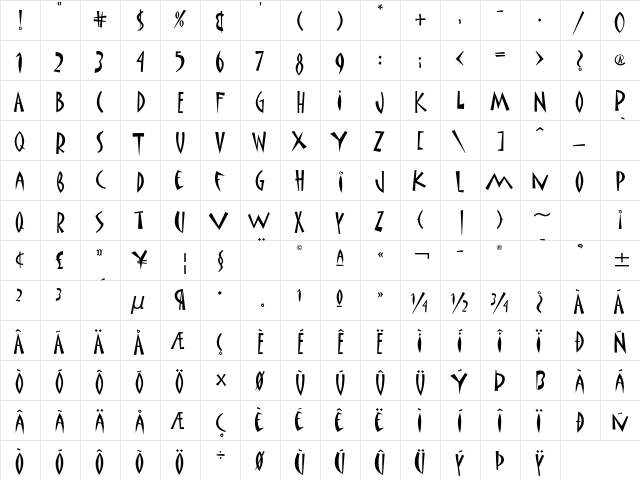
Matisse ITC Std Regular
| Designer | Gregory Gray |
Design Context for Matisse ITC Std Typeface
Matisse ITC Std is a composed and adaptable typeface that performs quietly and consistently across a wide range of design contexts.
First published in 1997, this typeface is available in OpenType (OTF) format.